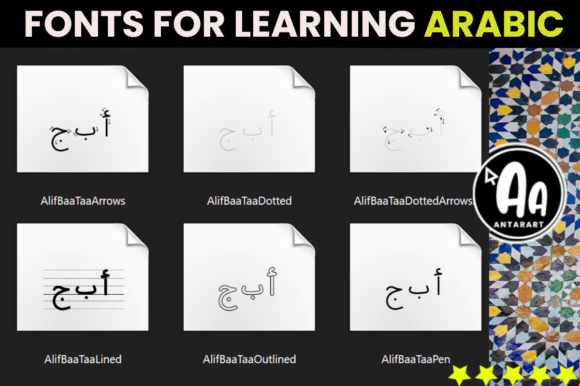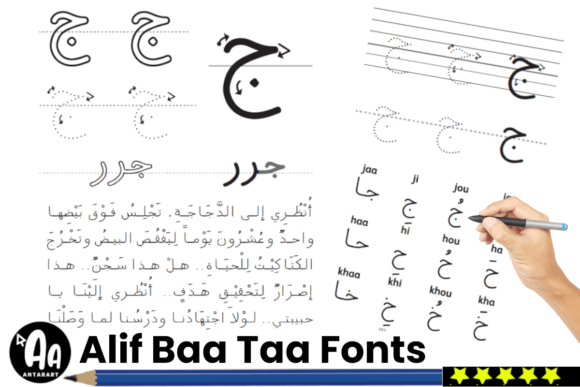
Alif Baa Taa Arabic Alphabet Letters Font: A Comprehensive Guide for Designers and Crafters
The Alif Baa Taa Arabic Alphabet Letters Font is a unique and valuable resource for designers, crafters, and anyone interested in the Arabic language. This handwritten Arabic font is designed to help individuals teach and learn Arabic, as well as create thousands of Arabic worksheets using any software. In this article, we will explore the features and benefits of this font, and how it can be used to enhance your design and learning experiences.
What is Alif Baa Taa Arabic Alphabet Letters Font?
The Alif Baa Taa Arabic Alphabet Letters Font is a handwritten Arabic font that includes all the letters of the Arabic alphabet. The font is designed to resemble traditional Arabic handwriting, making it an excellent tool for teaching and learning Arabic. The font is highly versatile and can be used in a variety of applications, from creating worksheets and educational materials to designing posters and other visual materials.
Features of Alif Baa Taa Arabic Alphabet Letters Font
The Alif Baa Taa Arabic Alphabet Letters Font has several features that make it an excellent resource for designers and crafters. Some of the key features include:
- Handwritten style: The font has a traditional handwritten style that resembles Arabic calligraphy.
- Complete Arabic alphabet: The font includes all 28 letters of the Arabic alphabet.
- High-quality design: The font is designed with high-quality lines and curves, making it clear and easy to read.
- Versatile: The font can be used in a variety of applications, from educational materials to design projects.
Benefits of Using Alif Baa Taa Arabic Alphabet Letters Font
The Alif Baa Taa Arabic Alphabet Letters Font offers several benefits for designers, crafters, and anyone interested in the Arabic language. Some of the key benefits include:
- Easier learning: The font provides a clear and easy-to-read representation of the Arabic alphabet, making it easier for individuals to learn and practice Arabic.
- Customizable: The font can be customized to fit your design needs, allowing you to create unique and personalized materials.
- Time-saving: The font can be used to create thousands of Arabic worksheets and educational materials, saving you time and effort.
- Cultural significance: The font provides a way to connect with Arabic culture and language, making it an excellent resource for designers and crafters interested in exploring new cultures.
Using Alif Baa Taa Arabic Alphabet Letters Font for Design and Learning
The Alif Baa Taa Arabic Alphabet Letters Font can be used in a variety of ways for design and learning. Here are some ideas:
- Create worksheets: Use the font to create Arabic worksheets for students, including tracing and writing exercises.
- Design posters: Use the font to design posters and other visual materials that showcase the Arabic alphabet.
- Make crafts: Use the font to create Arabic-themed crafts, such as cards and gift tags.
- Teach Arabic: Use the font to create educational materials and resources for teaching Arabic.
| Font Name | Alif Baa Taa Arabic Alphabet Letters Font |
| Author | AntarArt |
The Alif Baa Taa Arabic Alphabet Letters Font is a valuable resource for designers, crafters, and anyone interested in the Arabic language. With its traditional handwritten style and complete Arabic alphabet, this font is perfect for teaching and learning Arabic, as well as creating thousands of Arabic worksheets and educational materials. Whether you’re a designer, crafter, or language learner, this font is an excellent addition to your toolkit.